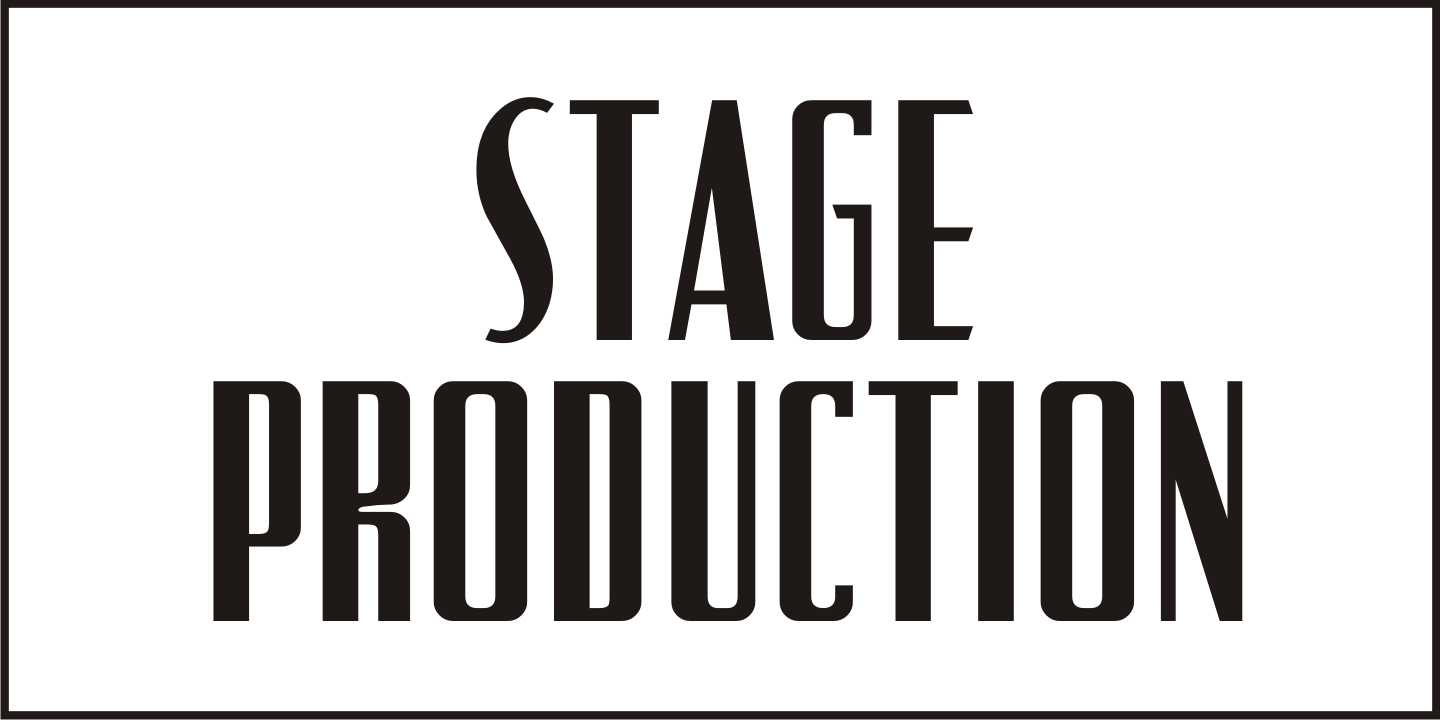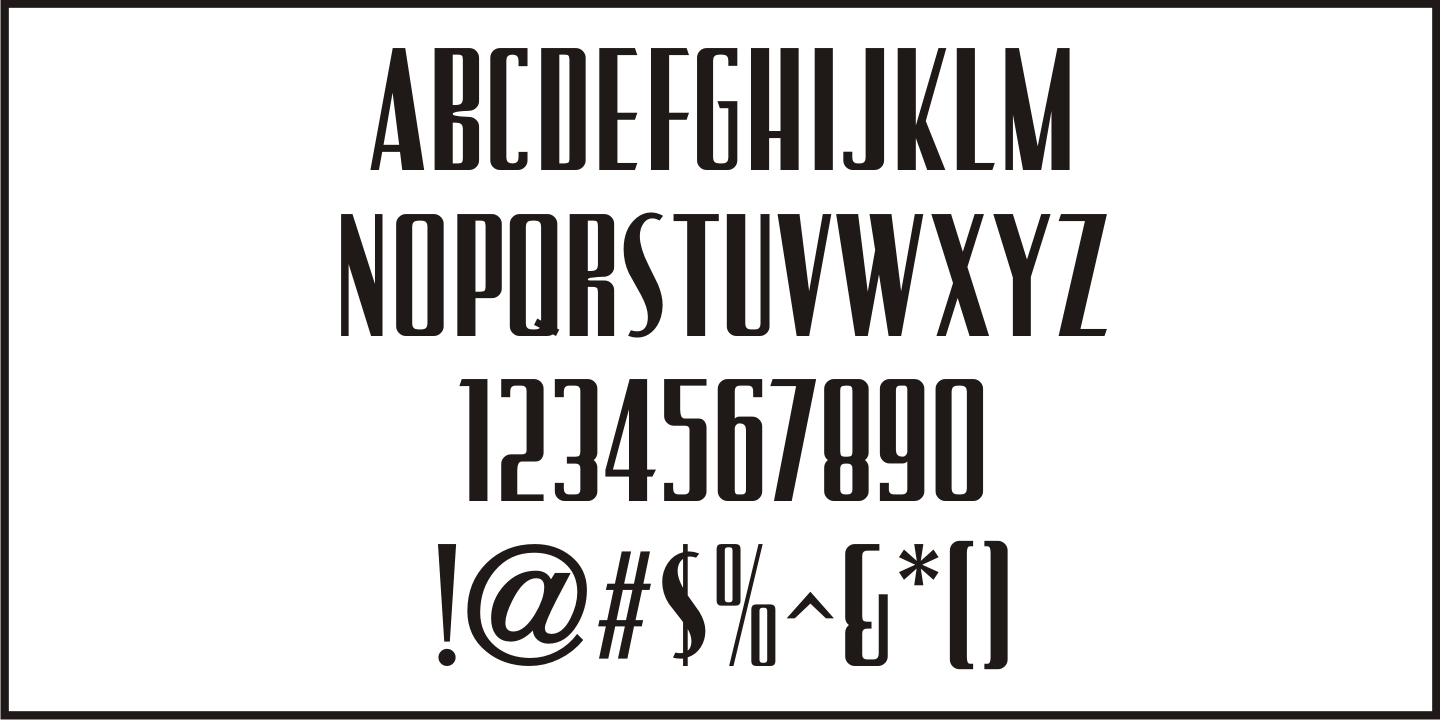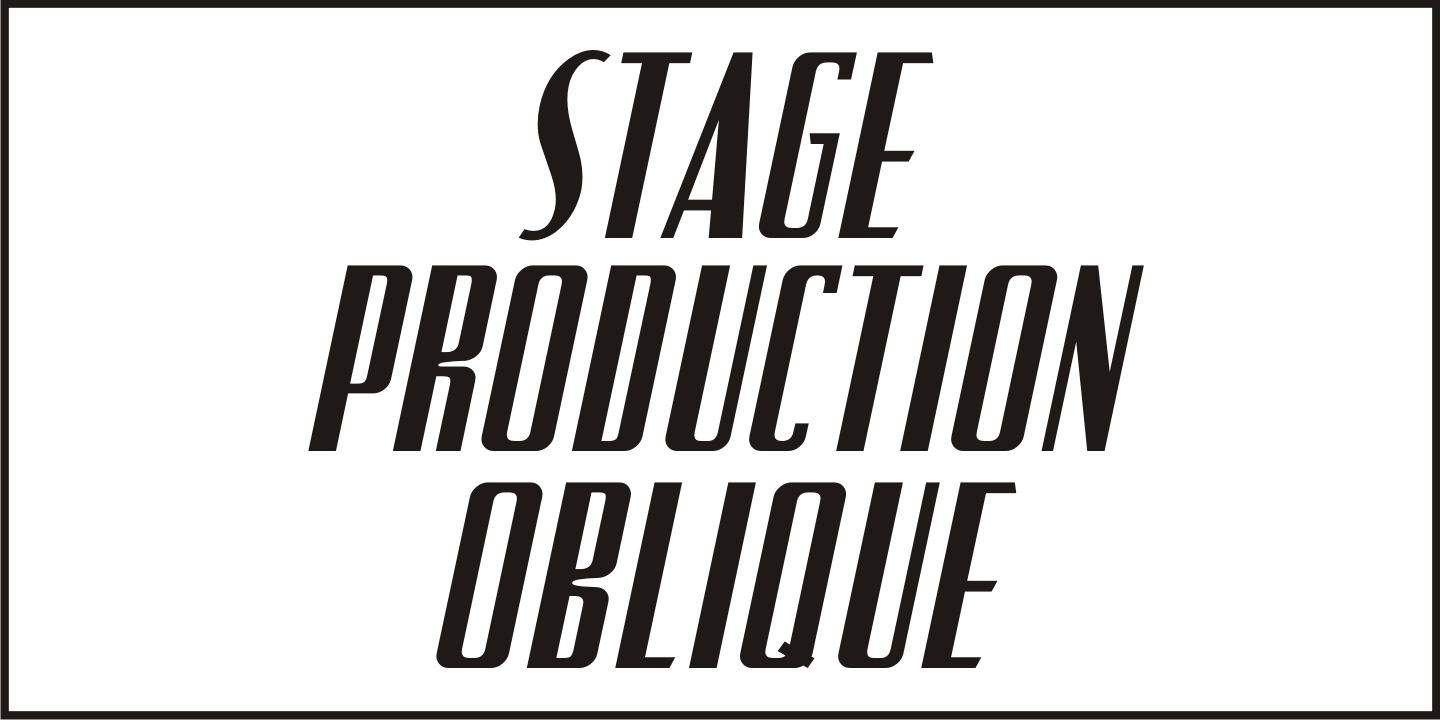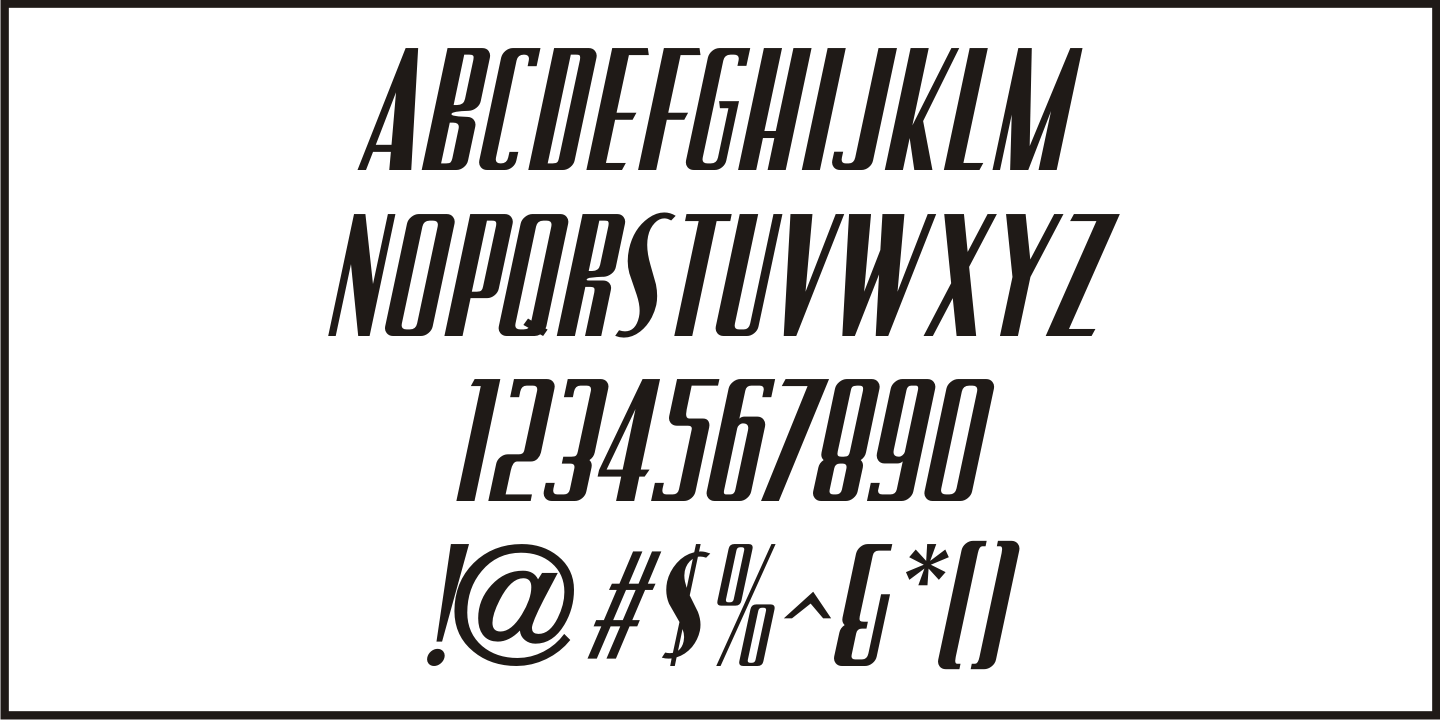
Stage Production
A 1935 piece of sheet music entitled '(There's A) Little Picture Playhouse in My Heart' had its movie-themed title hand lettered in a condensed Art Deco style with a few interesting character variations.
The resulting digital type design is Stage Production JNL, which is available in both regular and oblique versions.
Stage Production JNL Regular by Jeff Levine Fonts